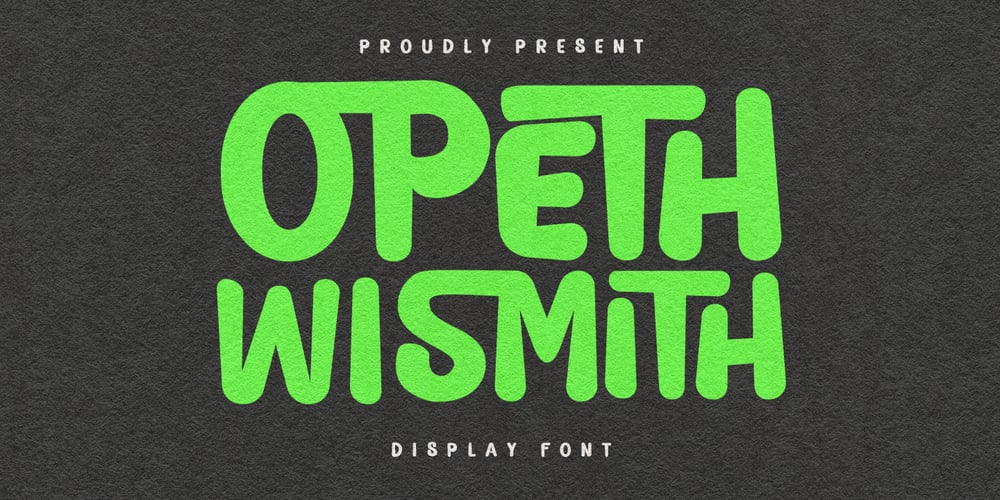
MC Opeth Wismith
MC Opeth Wismith font
MC Opeth Wismith Font Family was designed by Gilang Maulana and published by Maulana Creative. MC Opeth Wismith contains 1 styles and family package options. Opeth Wismith is a handwritten sans display font. With smooth and bold stroke, fun character with a ligatures. To give you an extra creative work Opeth Wismith font support multilingual more than 100+ language. This font is good for logo design, Social media, Movie Titles, Books Titles, a short text even a long text letter and good for your secondary text font with sans or serif. Make a stunning work with Opeth Wismith font.